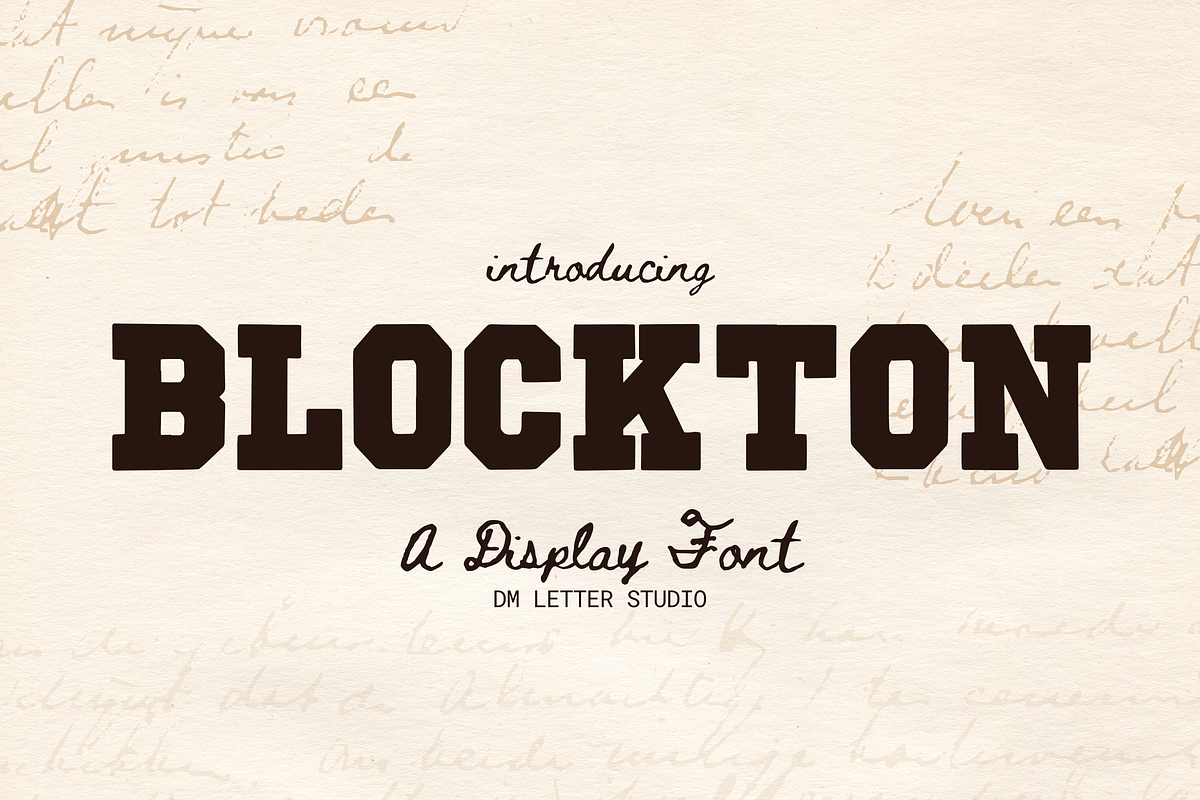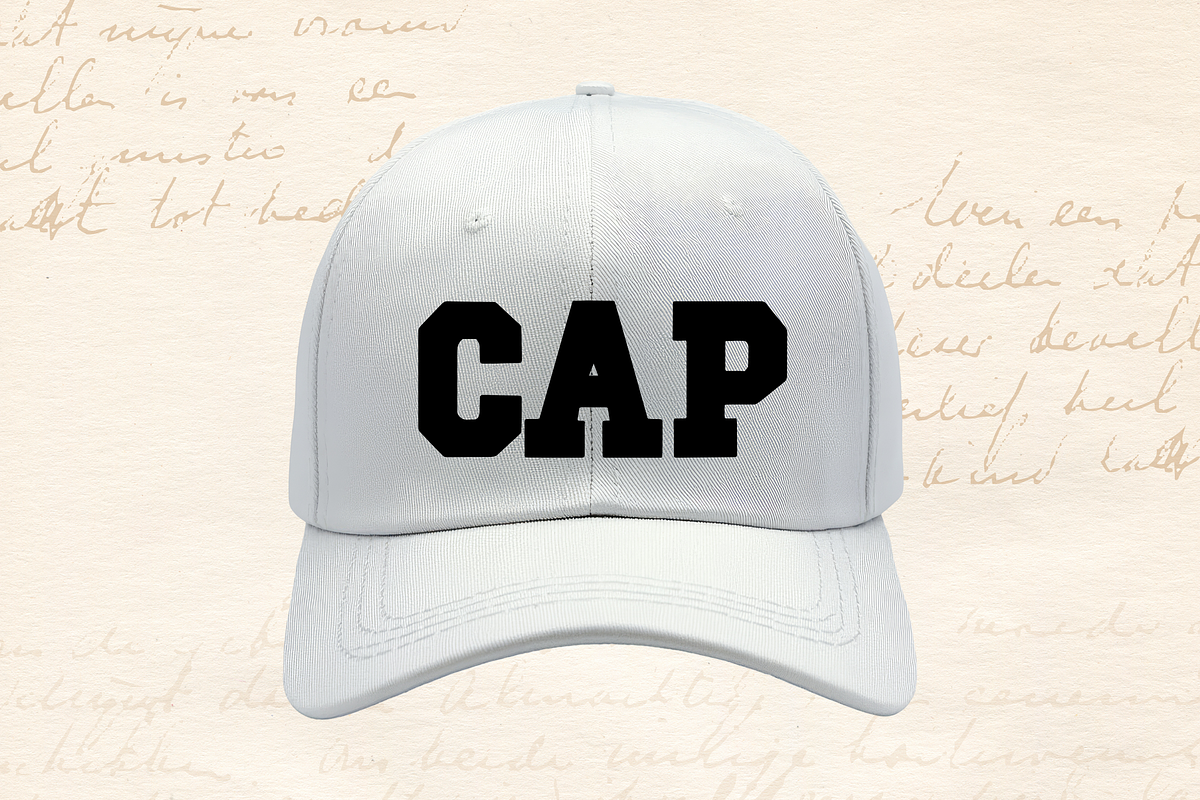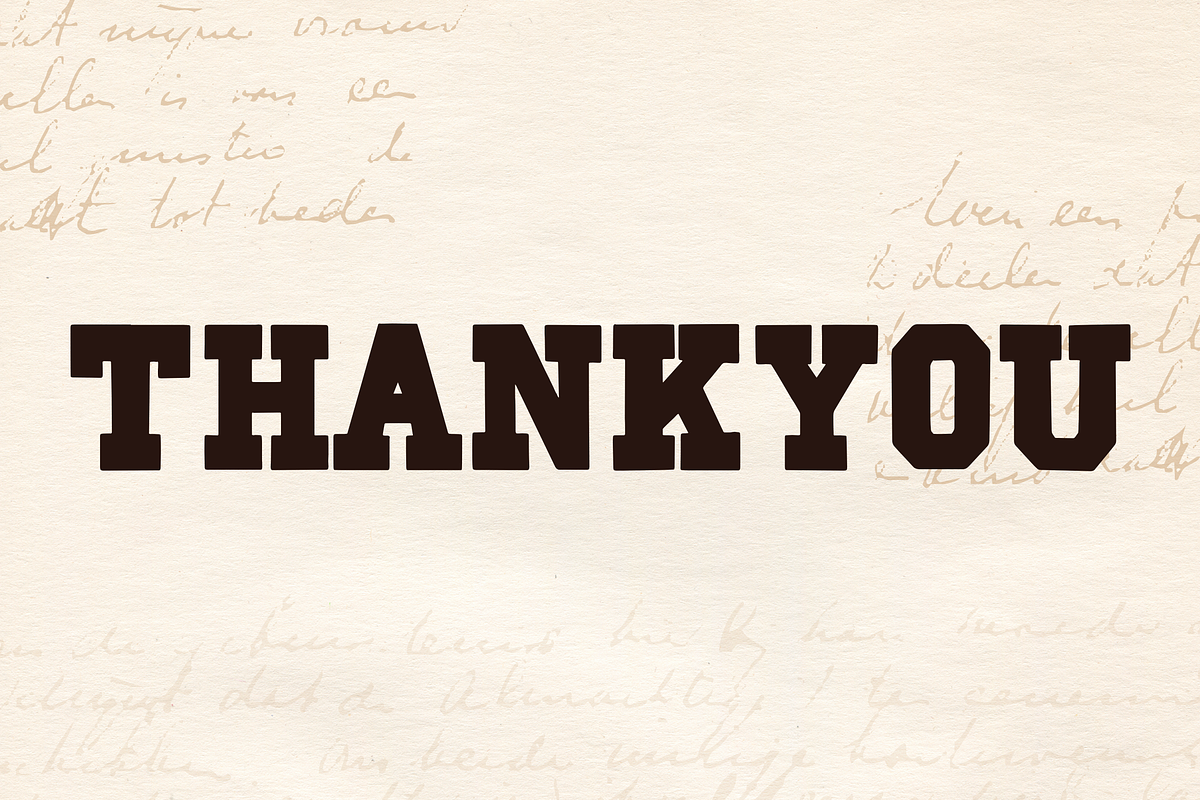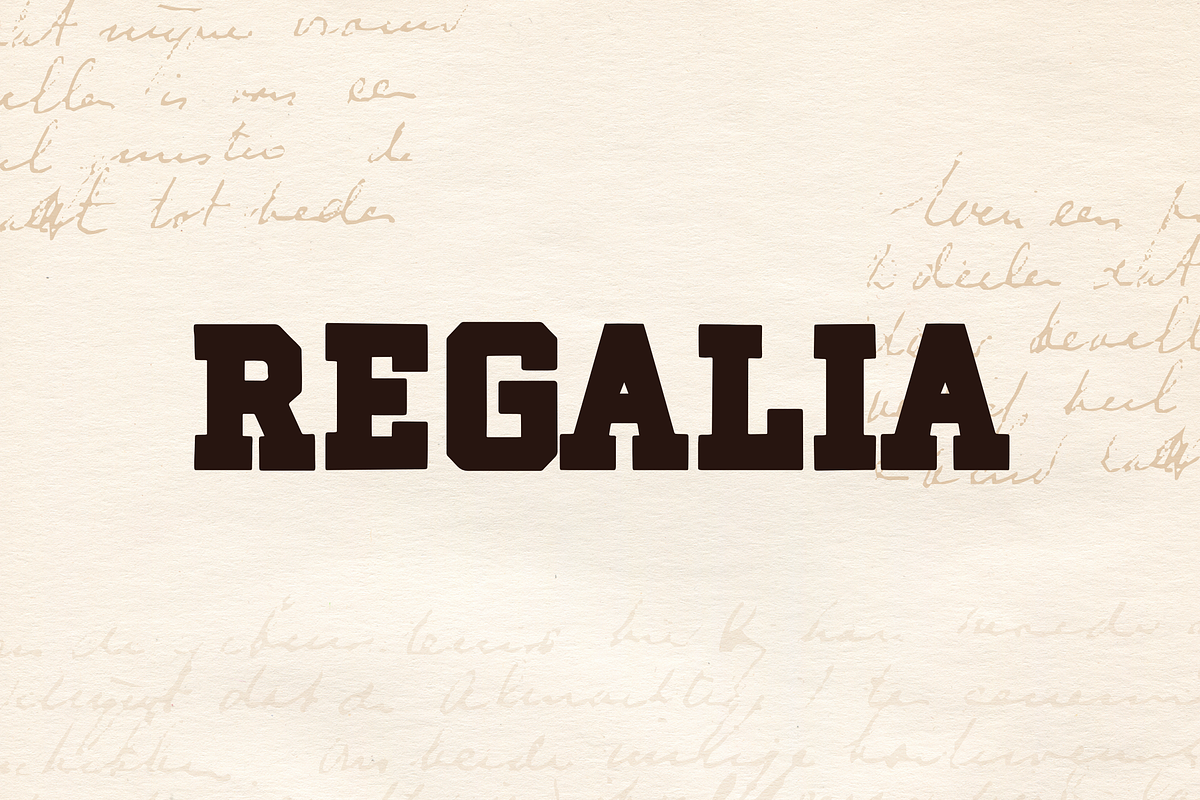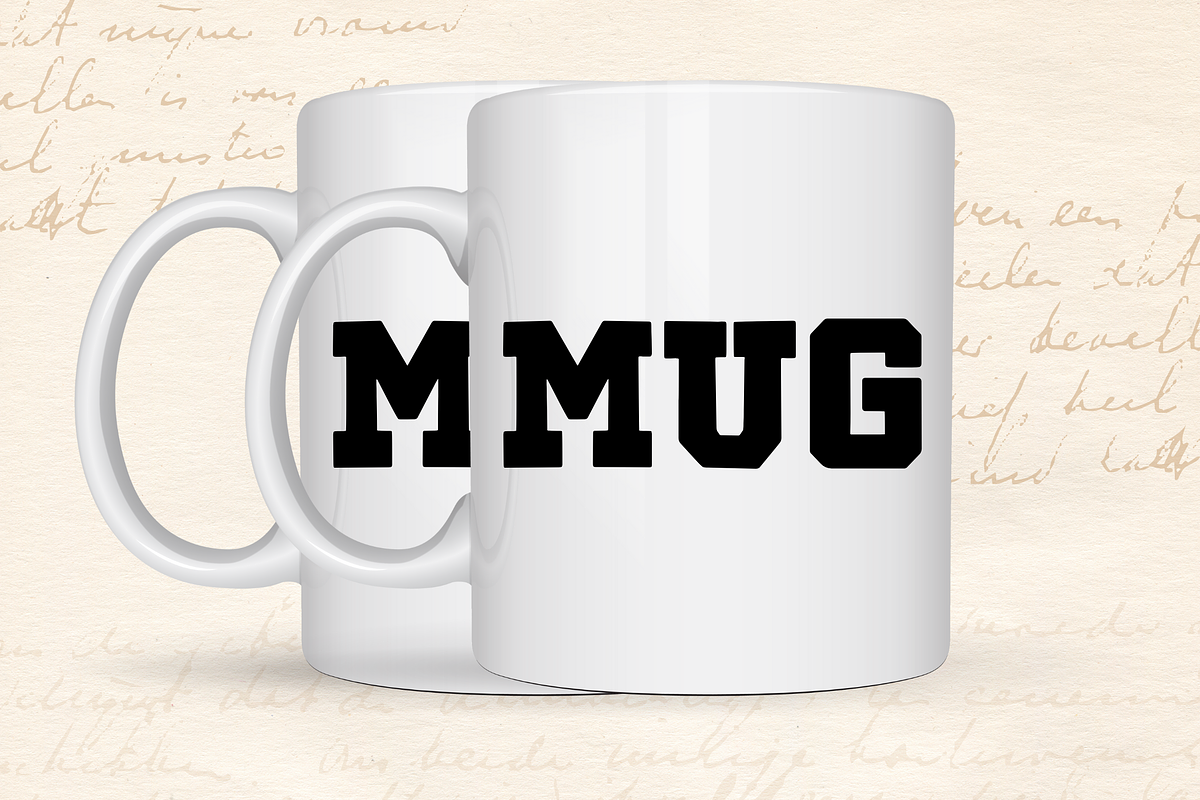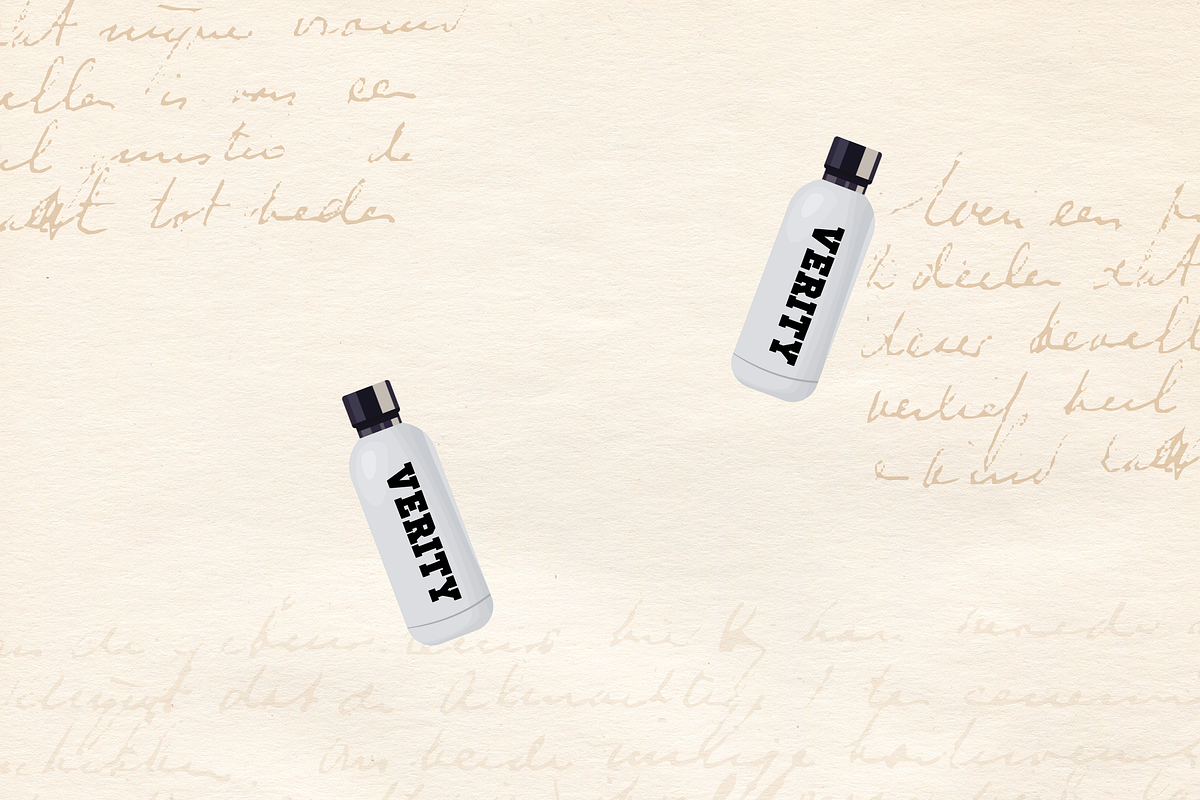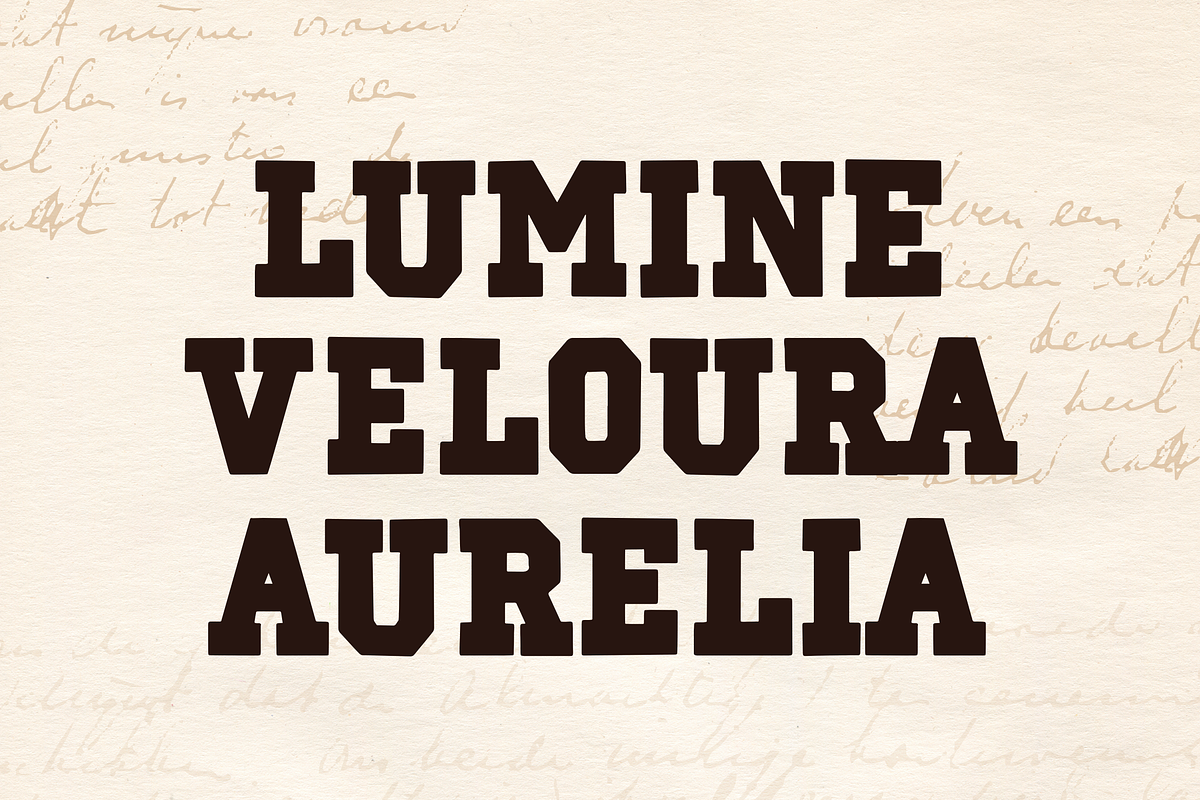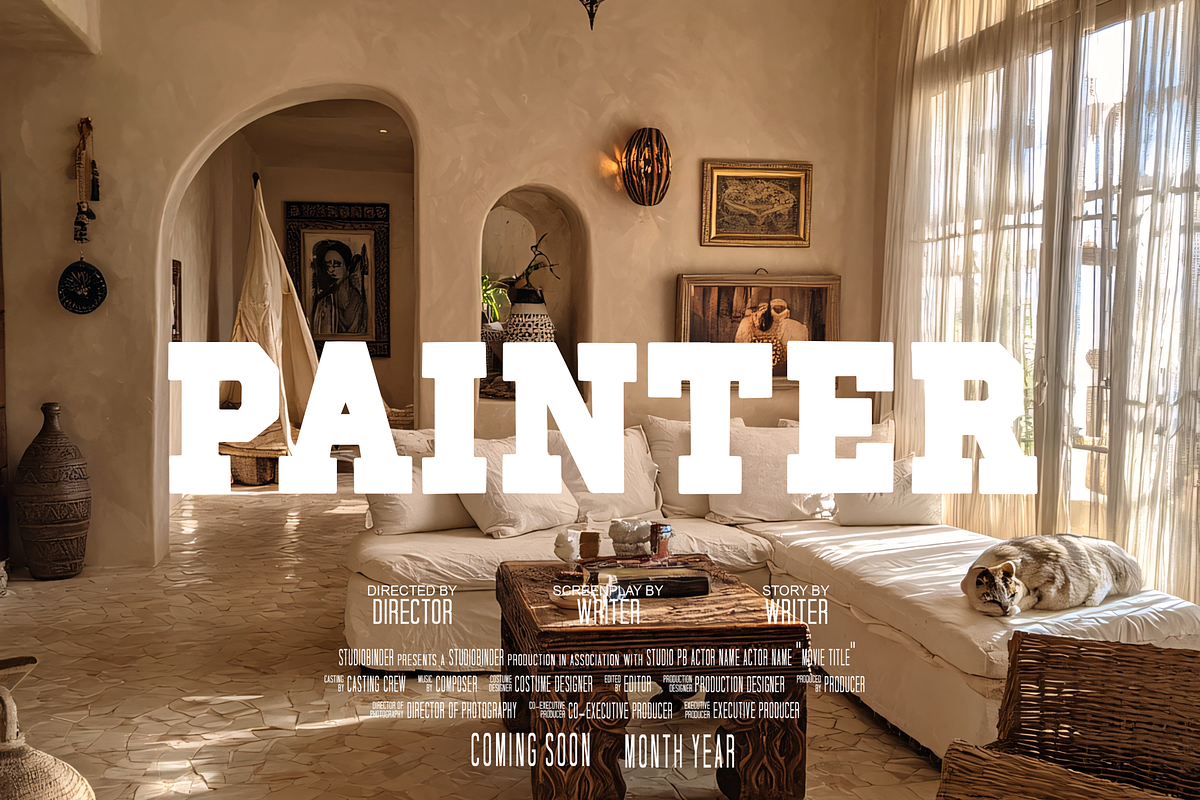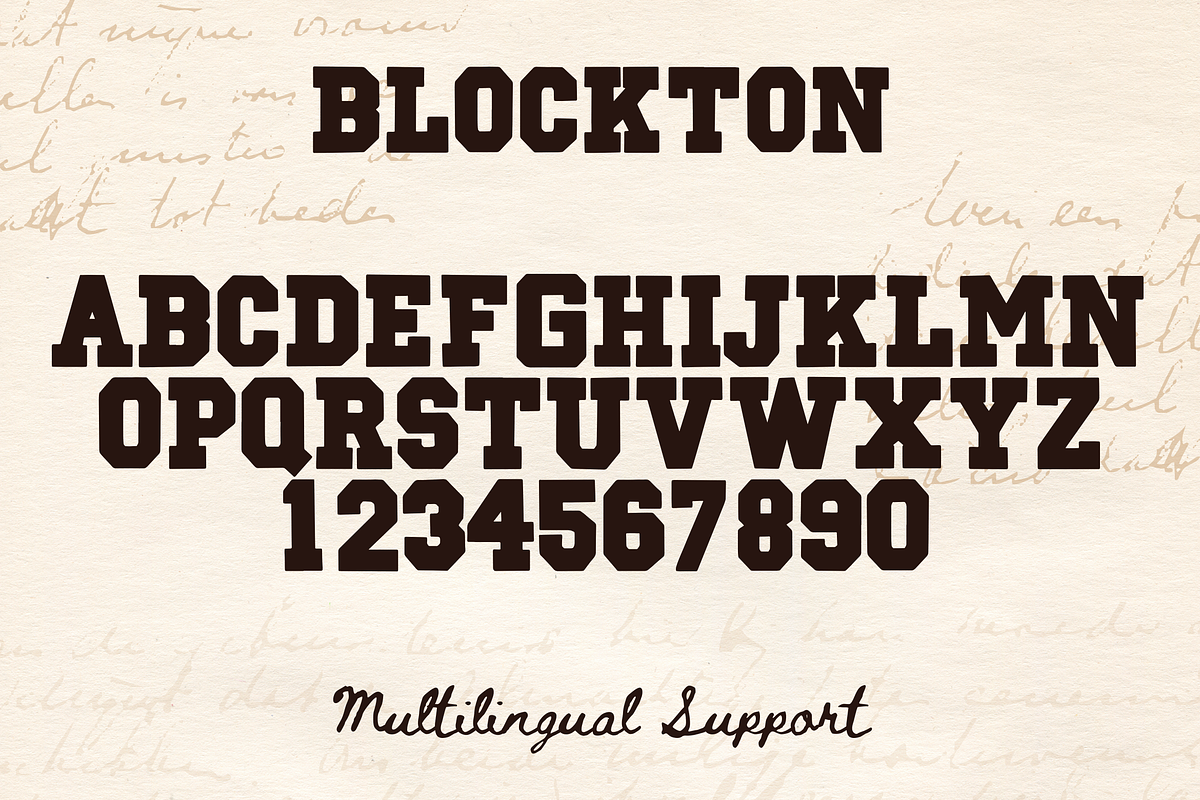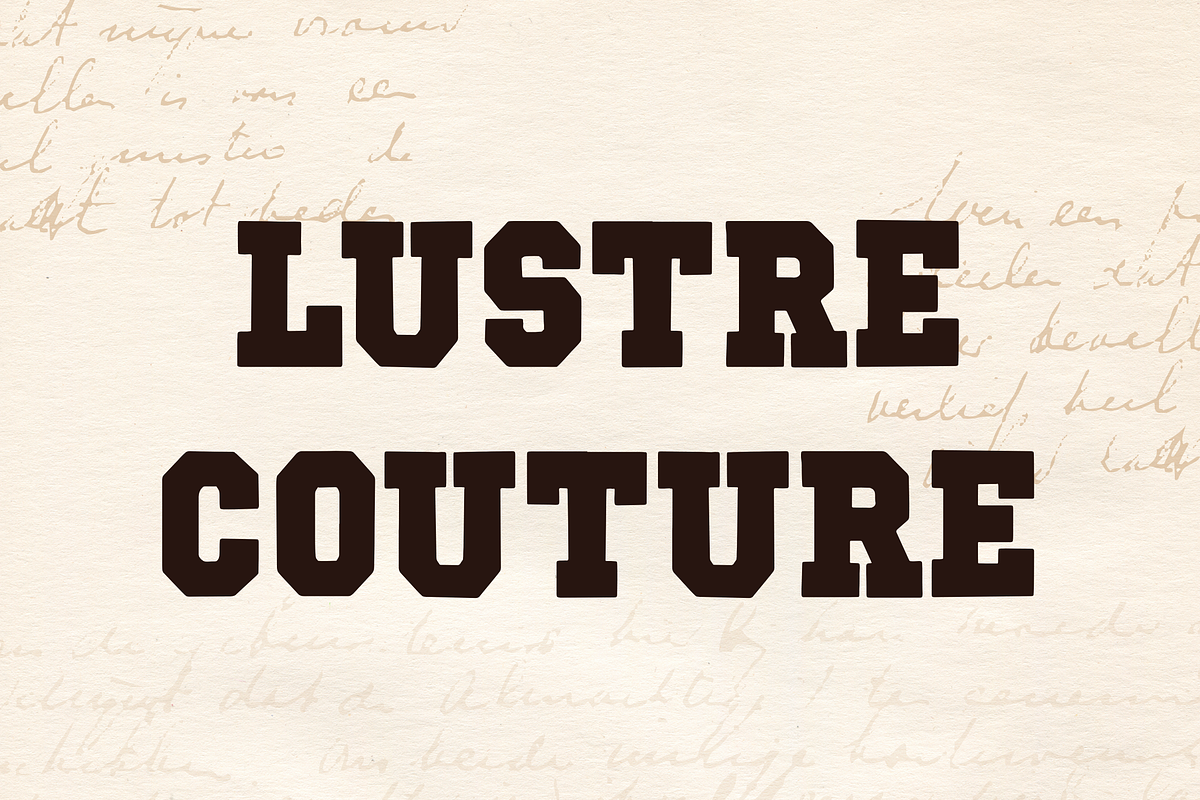
Blockton
Meet Blockton, the Bold Block Display Font
Blockton is a bold block display font built with strong, confident letterforms that demand attention. Its clean geometry and solid weight make it perfect for headlines, logos, and statement designs where clarity matters. Because the shapes are balanced and sturdy, Blockton stays readable at any size, from small labels to large posters. Use it for branding, packaging, posters, apparel, signage, stickers, and social media graphics. As a result, your designs look powerful, modern, and ready to stand out.
Fast layouts with the Blockton Font
Start with short, punchy words to show off the bold shapes. After that, add supporting text in a clean sans or light serif font. Because Blockton has strong geometry, it works especially well in stacked layouts, boxed designs, and badges. In addition, it shines on posters, labels, and apparel graphics. Finally, try color pairs like black & white, red & cream, navy & ivory, or monochrome palettes for a clean, modern look.
Creative uses and quick wins
- Logo marks and brand names
- Posters, flyers, and event headlines
- Packaging, labels, and stickers
- T-shirts, hoodies, hats, and merch
- Uppercase, lowercase, numbers, punctuation
Design tips for Blockton Display Font
Keep words short so the bold style stays clear. Also, give letters enough spacing for clean readability. For extra impact, try outlines, shadows, or layered colors. Finally, export at 300 DPI for print and at 2× size for web so edges stay sharp.